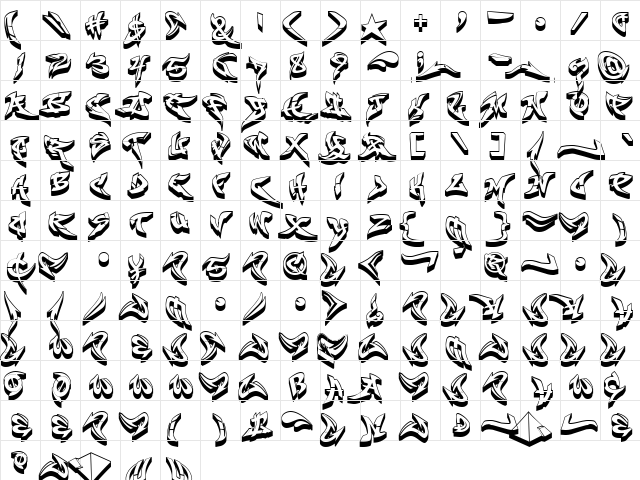
RaseOne Fat 3D Free Font
RaseOne Fat 3D
Style: Fat 3D
Complete RaseOne Fat 3D glyph index. Displaying only characters natively supported by RaseOne Fat 3D font.
Design Context for RaseOne
RaseOne is a composed and adaptable typeface that performs quietly and consistently across a wide range of design contexts.